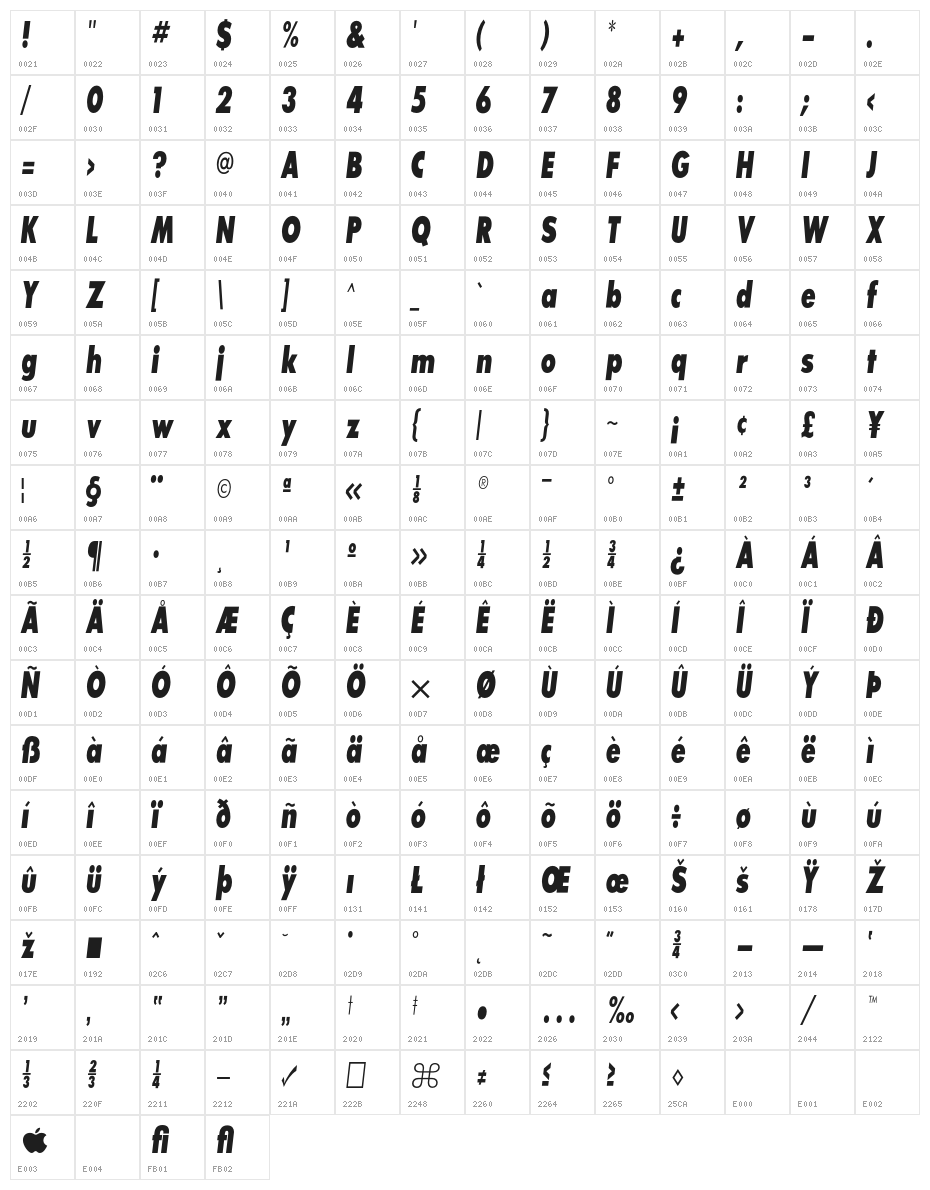
SansSerifExbFLFCond-Italic Font
SansSerifExbFLFCond-Italic Description
This font features a bold and dynamic sans-serif style with a condensed width and italic slant. The characters are robust and impactful, making them ideal for attention-grabbing designs. The uppercase and lowercase letters maintain a consistent weight, providing a uniform appearance. The numbers and special characters are designed to complement the letters, ensuring a cohesive look across all text elements. The italic nature adds a sense of motion and modernity, while the condensed form allows for efficient use of space without sacrificing readability.
Proposed ProjectsIdeal for headlines, posters, branding, and advertising where a strong, modern presence is needed.